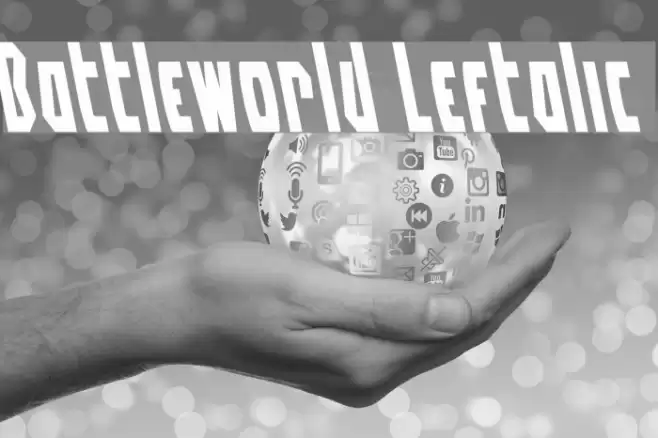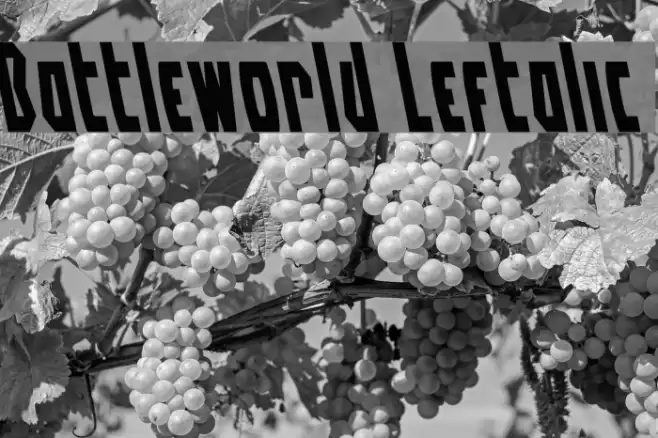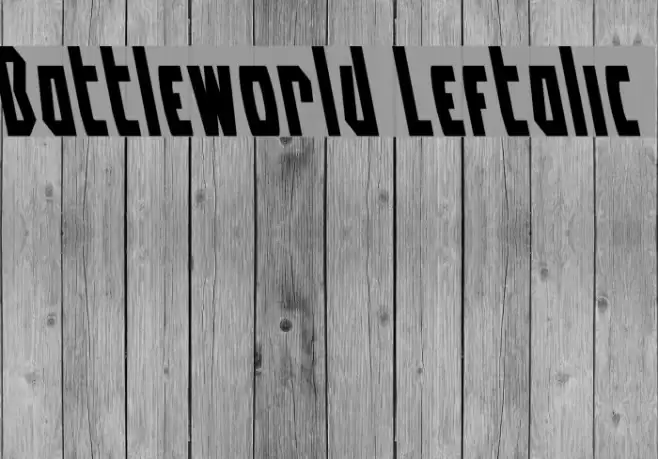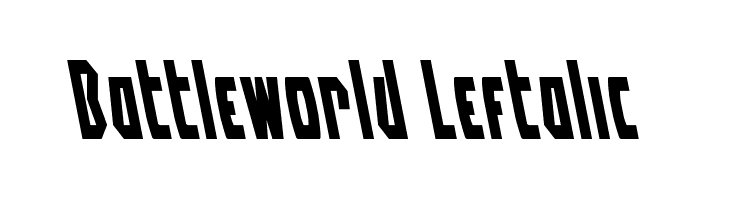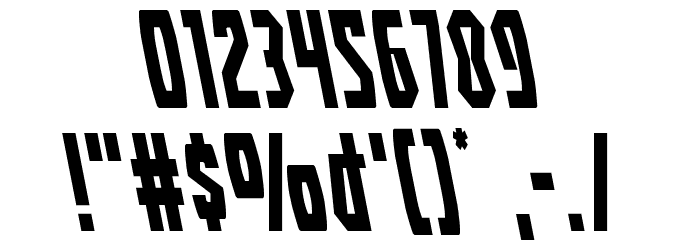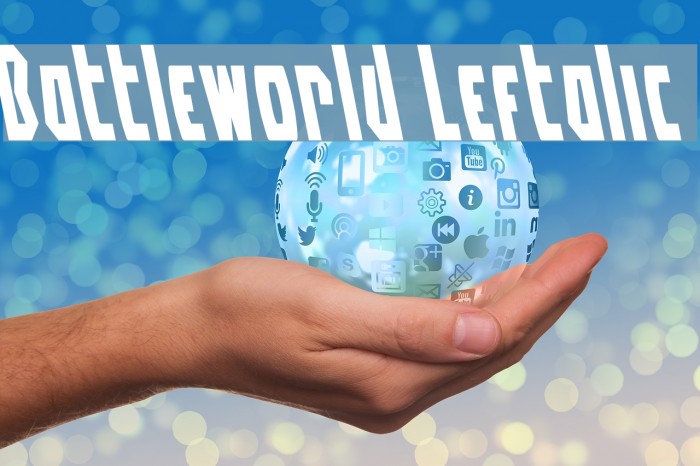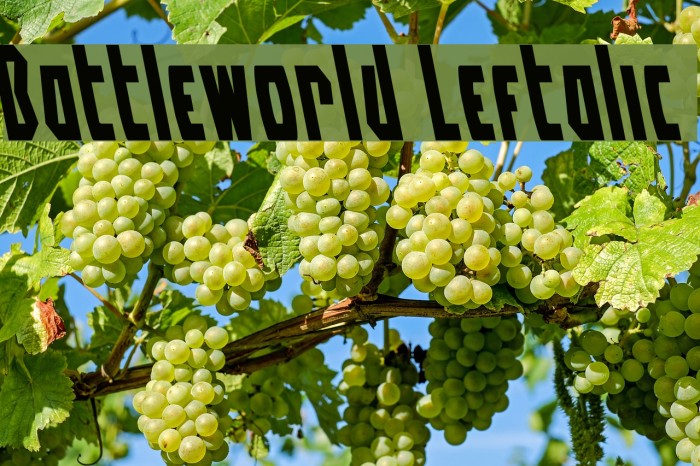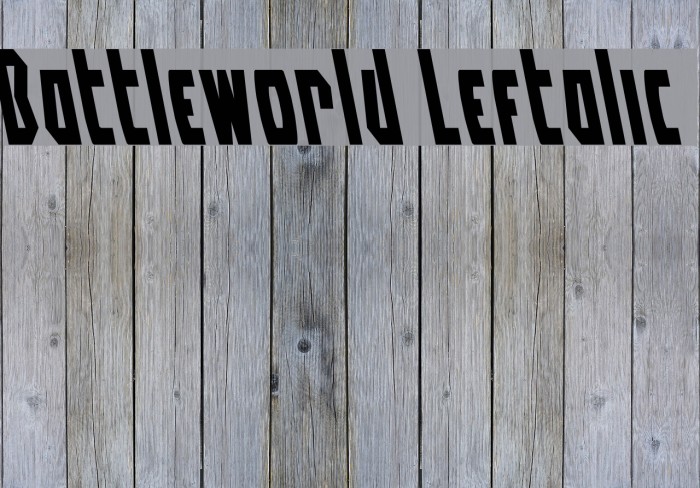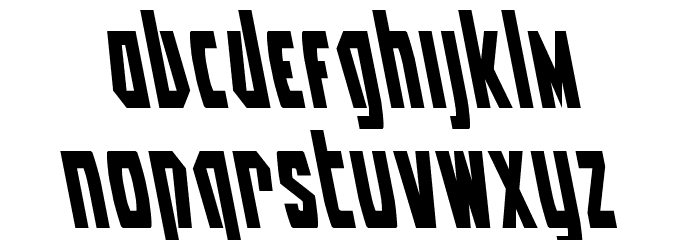
Battleworld Leftalic Font
Battleworld Leftalic Description
This font features a bold and dynamic design with a distinct leftward slant, giving it an energetic and forward-moving appearance. The characters are sharply angular with a strong geometric influence, creating a sense of motion and urgency. The uppercase and lowercase letters maintain a consistent style, with the uppercase being particularly striking due to its height and angularity. Numbers and special characters follow the same bold and slanted style, ensuring uniformity across all glyphs. This font is ideal for projects that require a strong visual impact and a modern, edgy feel.
A bold, left-slanted font with sharp angles and a dynamic, modern style from Sci-fi fonts.
- Proposed Projects: Ideal for sports branding, action movie posters, video game titles, and dynamic advertising campaigns.